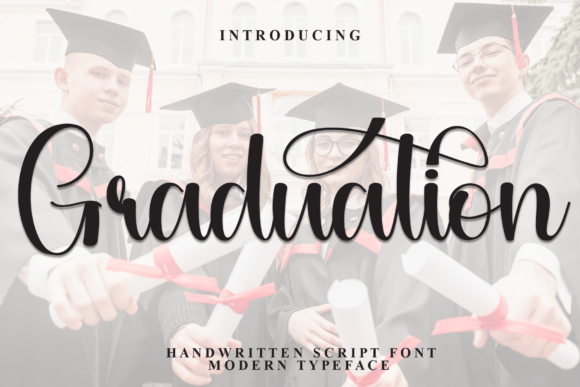
The Perfect Script: Discovering Graduation Font
As designers, we’ve all been there – staring at a blank page, trying to find the perfect font to convey the message of our latest project. And then, it happens – a spark of inspiration strikes, and we stumble upon a font that makes everything click into place. For me, that font was Graduation, a stylish handwritten script that has become my go-to choice for adding a touch of elegance and playfulness to any design.
Graduation Font is more than just a pretty face – it’s a versatile tool that can add a personal, charming touch to invitations, branding, and social media. With its flowing curves and natural rhythm, it’s the perfect choice for designers looking to bring warmth, sophistication, and creativity to their projects.
Whether you’re a seasoned pro or just starting out, Graduation Font is a valuable addition to any designer’s toolkit. Its unique design makes it stand out from the crowd, and its versatility means it can be used in a wide range of projects, from weddings and birthdays to corporate branding and social media campaigns.
Graduation Font Key Features
- Unique Characteristic: The font features a unique, hand-drawn design with subtle flourishes and ornaments, adding a touch of elegance to any text.
Graduation Font Review
When I first laid eyes on Graduation Font, I was immediately drawn to its unique, celebratory vibe ✨. The font is designed to evoke a sense of achievement and triumph, making it perfect for graduation announcements, certificates, and other special occasions. The bold, eye-catching letters are sure to grab attention and leave a lasting impression.
- Unique and celebratory vibe ✨
- Perfect for graduation announcements and certificates
- Bold and eye-catching letters
- Available in various weights and styles
While Graduation Font is certainly eye-catching, it may not be suitable for all types of projects ⚠️. For example:
- It may be too bold and overpowering for more subtle designs
- The font may not be as versatile as other options for non-celebratory projects
- Some users may find the font’s celebratory feel too kitschy or over-the-top
Overall, I think Graduation Font is a great option for projects that require a bold, celebratory feel. While it may have some limitations, it’s sure to make a lasting impression and add a touch of excitement to any design.
The Graduation Font is ideal for use in graduation-themed designs, such as certificates, invitations, and posters.